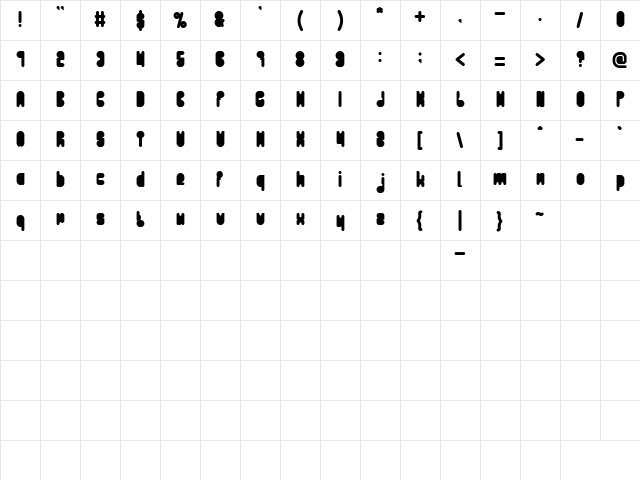
PORTABLE Regular Free Font
PORTABLE Regular
PORTABLE Family
Design Context for PORTABLE
PORTABLE is a composed and adaptable typeface that performs quietly and consistently across a wide range of design contexts.
Pro Tip: Use PORTABLE in both headline and body roles to test its range before committing to a single application.